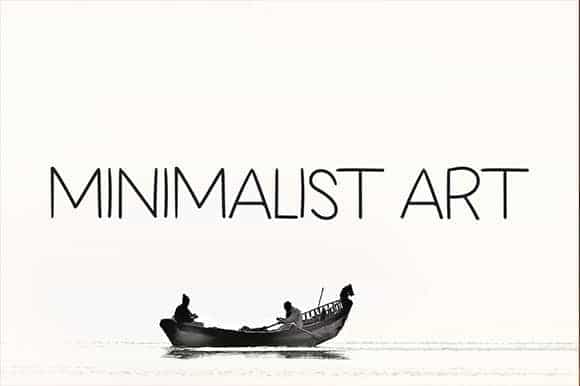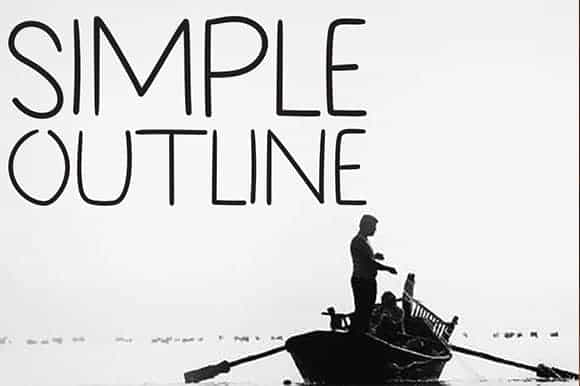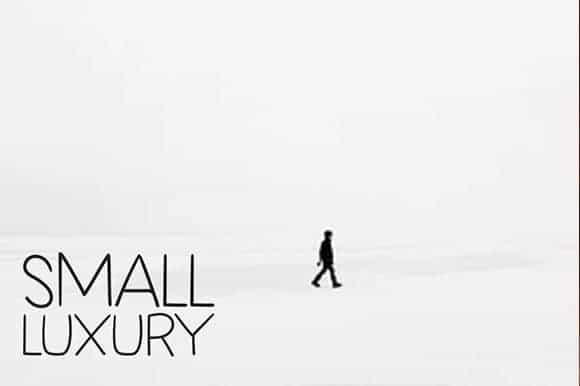
For a look that has a hint of MINIMALIST ART the Font has modern letters ideal for wall designs. This font is perfect for Wedding Invitations, Social Media graphics and logos, Ads, Packaging, Products designs, Labels, Watermarks for Photographers, Invitations, Stationery and any project that needs to have the handwritten touch.